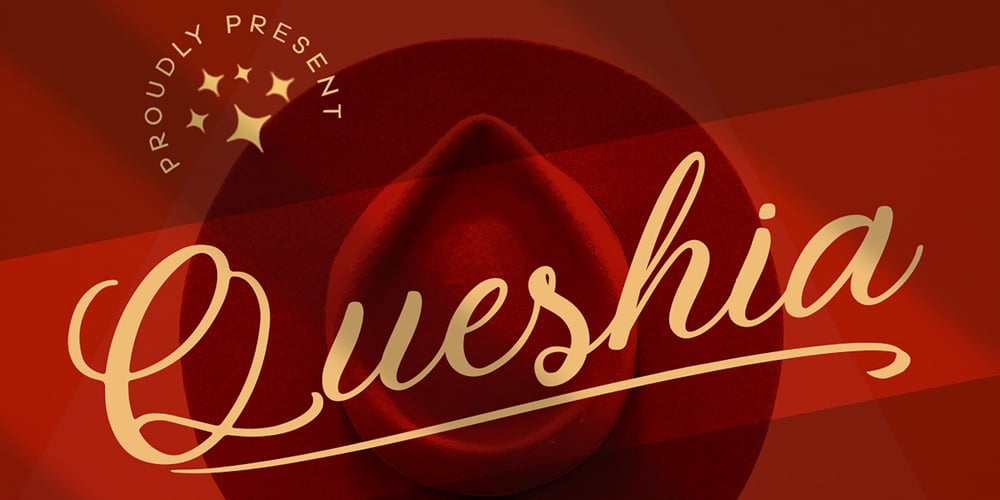
Queshia Script
Queshia Script font
Queshia Script Font Family was designed by Tezar Tantular and published by Keristyper Studio. Queshia Script contains 1 styles and family package options. Introducing Queshia font is a beautiful script specially made to look so natural. Created with an authentic, handwritten feel. It looks stunning on wedding invitations, thank you cards, quotes, greeting cards, logos, business cards, and every other design which needs a handwritten touch.Multilingual support: Afrikaans, Albanian, Catalan, Danish, Dutch, English, Estonian, French, Finnish, German, Icelandic, Indonesian, Italian, Malay, Norwegian, Portuguese, Spanish, Swedish, Zulu, and many more.What’s Included : Standard & Multilingual glyphs Ligature Works on PC & Mac Simple installations Accessible in Adobe Illustrator, Adobe Photoshop, Adobe InDesign, and even work on Microsoft Word. Hope you enjoy our font!